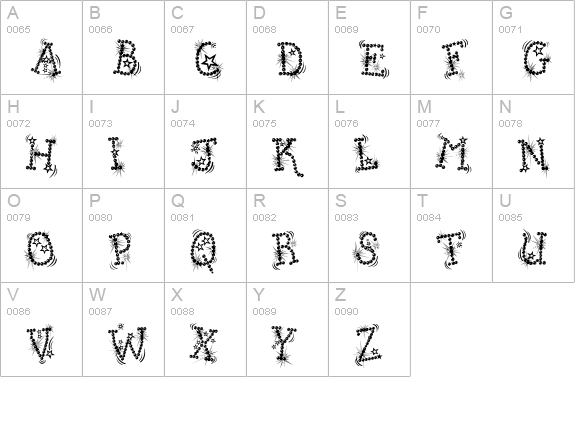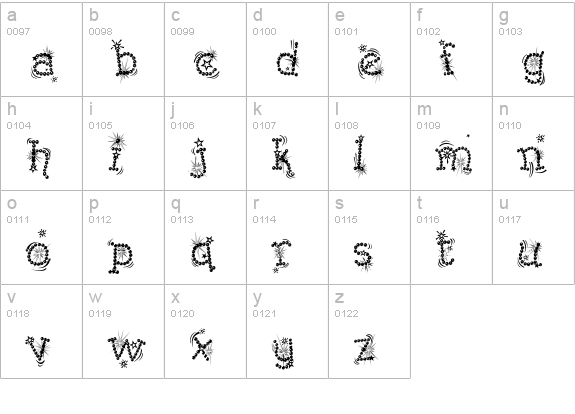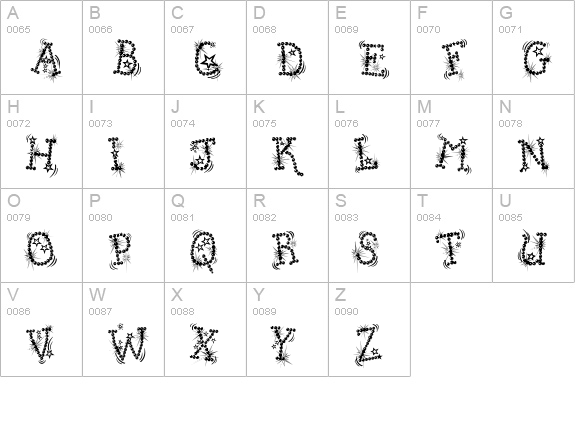
Kingthings Flashbang is a captivating and dynamic font that will bring a burst of energy to any design project. With its bold and explosive letterforms, this font is perfect for grabbing attention and making a powerful statement. Designed with a modern and edgy style, Kingthings Flashbang is versatile and can be used in a variety of creative contexts. Whether you're designing a poster, logo, or website, this font will add a touch of excitement and vitality. What sets Kingthings Flashbang apart is not only its visually striking appearance but also the fact that it is available for free. Yes, you read that right - this incredible font can be downloaded freely at FontsMarket.com. This means that you can enhance your designs without having to worry about any extra costs. So, why wait? Download Kingthings Flashbang today and unleash the explosive power of this font in your next project. Grab attention, make a statement, and leave a lasting impression with this amazing free font.